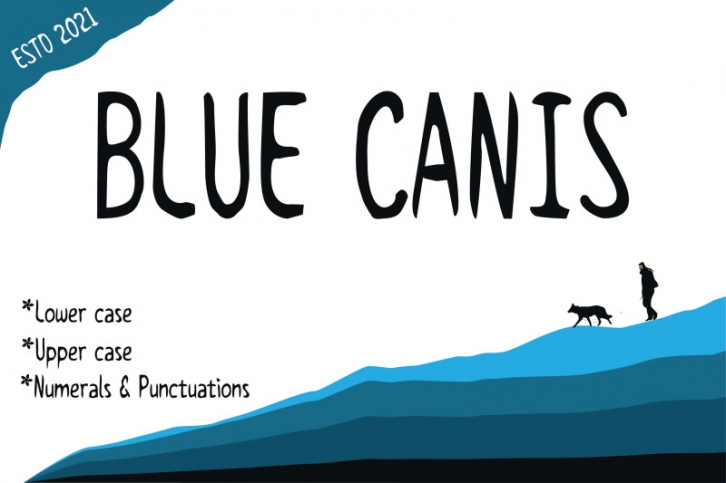
Blue Canis is an attractive and cool modern slab serif font. Simple but with a strong visual effect, this font will instantly make your creation more eye-catching than others.